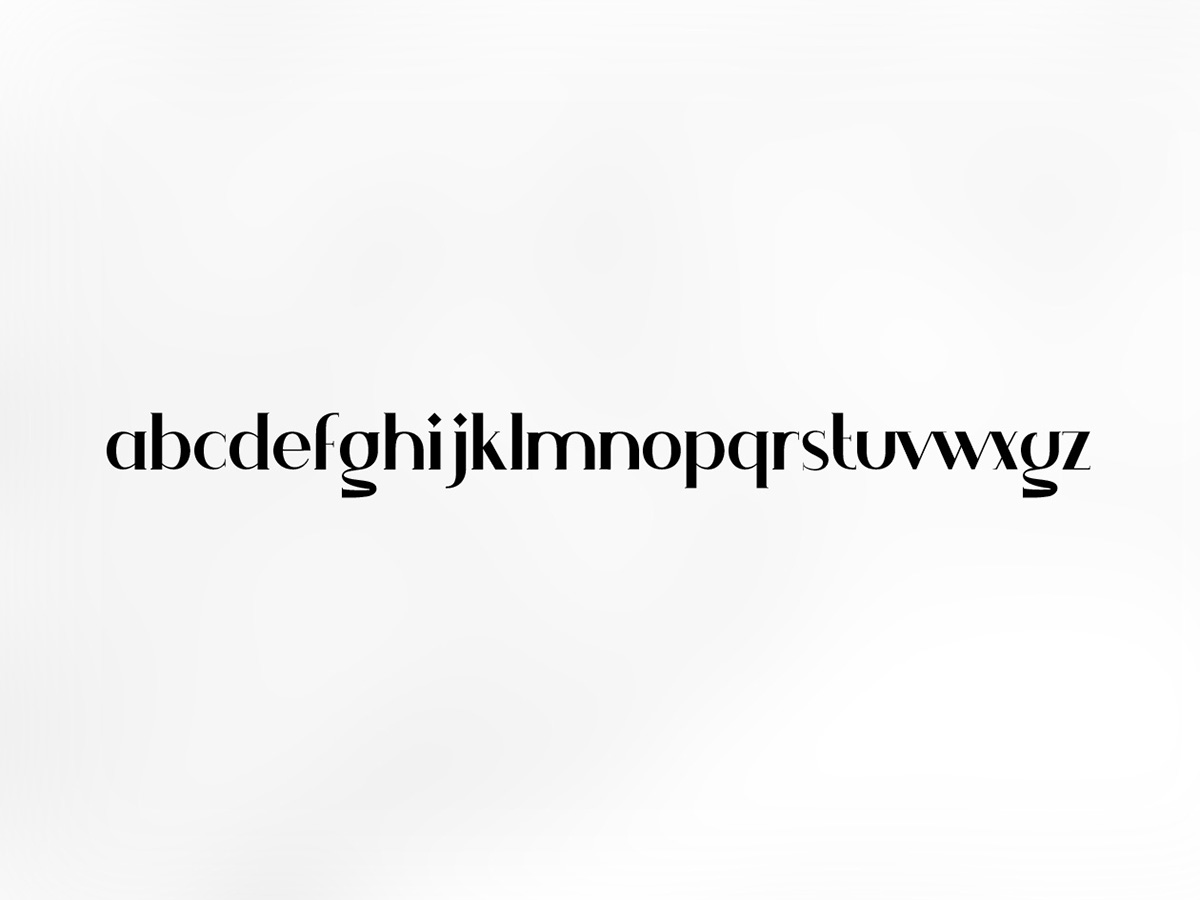
Ginva – Free Font
Ginva Font is a design of Wassim Awadallah. Ginva Font is a free serif font with artistic curves and perfectly pro- portional letters. It is an all lowercase typeface with intention to update with uppercase and special characters. Ginva typeface including 1 weight.